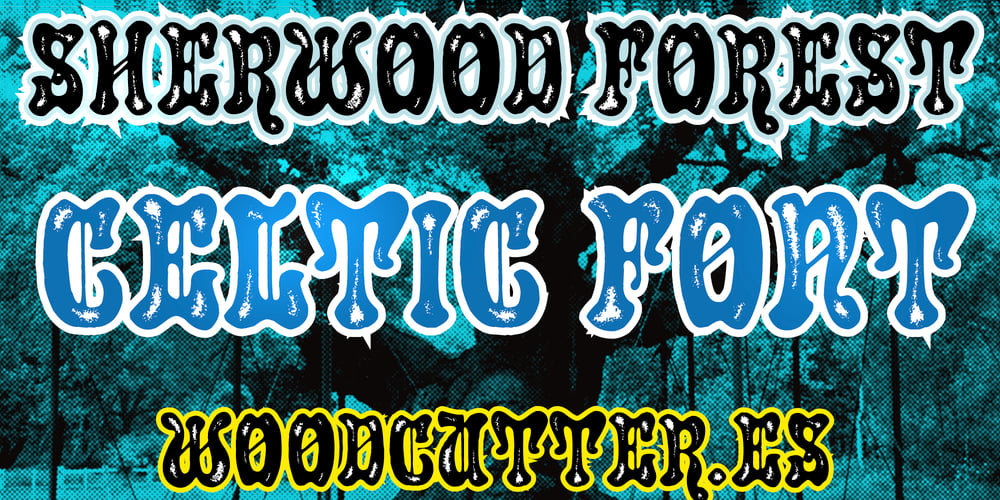
Sherwood Forest Font Family was designed by Jordi Manero and published by Woodcutter. Sherwood Forest contains 1 styles and family package options. “Sherwood Forest” is a font with a Celtic Gothic appearance featuring worn uppercase letters. Inspired by the mystique and tradition of Celtic folklore, each letter is elaborately designed and aged, as if carved from ancient stone. Ideal for projects that require a medieval or fantasy atmosphere, this font adds a touch of history and mystery to your designs. Perfect for book covers, themed posters, and any material seeking a rustic and legendary appearance.